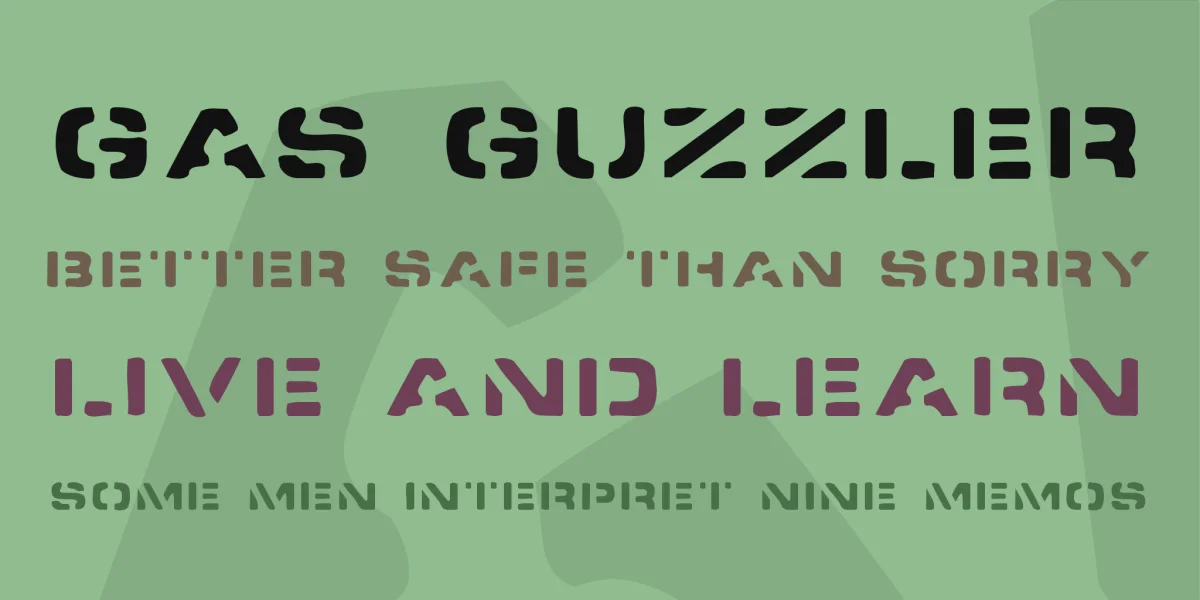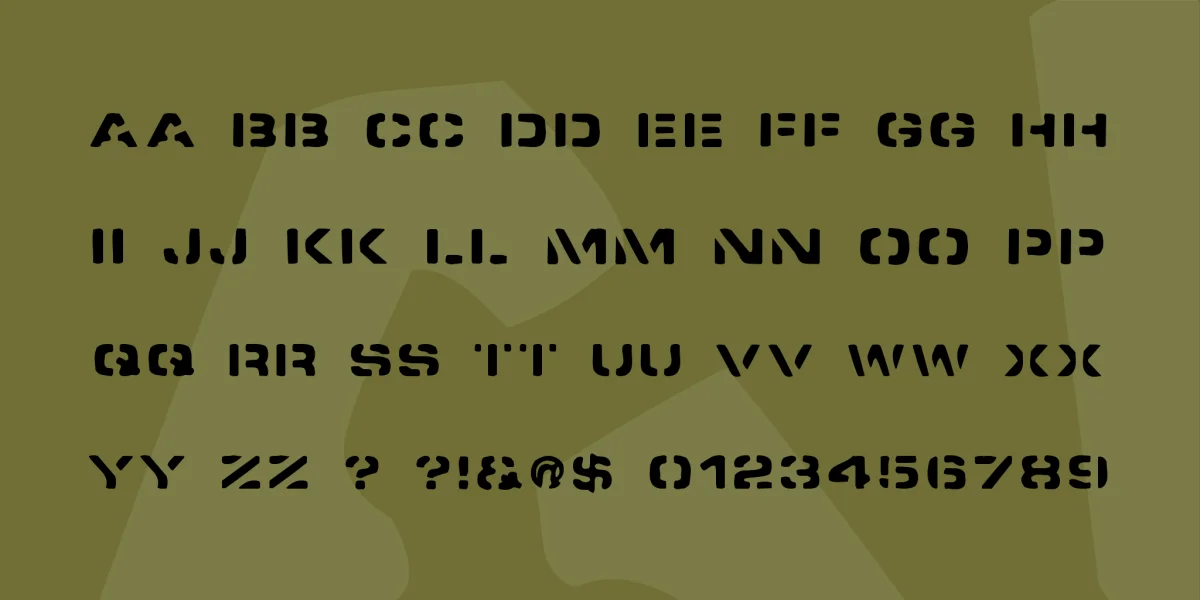
Spacedock Stencil is a font I assumed already existed - a stencilized, slightly stressed adaptation of a classic typeface that has long been associated with space-adventure fiction (used for signage in Space: 1999, the Star Trek films, and many others). I searched up and down for a long time, and while I encountered the occasional mock-up of stencils using this style, they were always individual works of graphic design, where somebody stencilized-and-stressed the thing by hand in a paint program.
So, I decided to stencilize-and-stress the entire keyboard set (plus some of my usual extras, like smartquotes and true dashes and things) all at once, so I'd never have to do it again!
I hemmed and hawwed over how much stressing to add ... did I want a flaked-paint look? A rusted-and-corroded look? A painted-by-an-idiot-not-competent-to-handle-a-paint-sprayer look? In the end, I went for very mild stressing - just a few random touches and a mild bloat to the edges, to give it a hasty but not *ruined* appearance, since added stressing is much easier to do later on than the rest. The final result is one I'm pleased with: an original font that hearkens back to an old favorite, and one that I'll find useful in upcoming Points in Space installments! Enjoy.